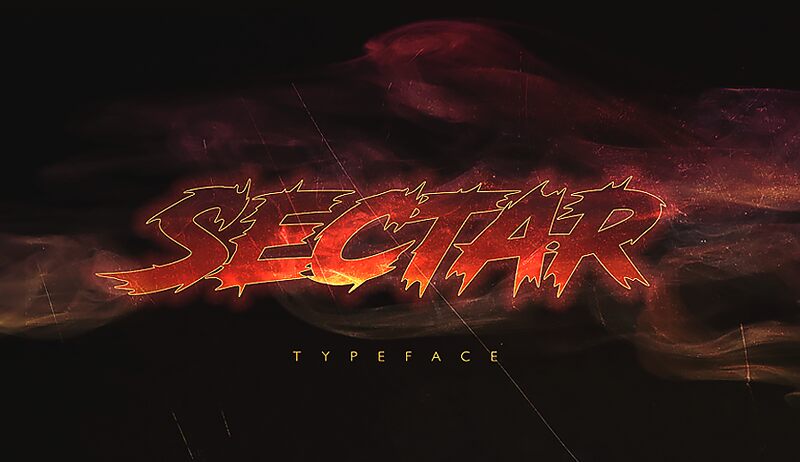
SectarSP-Back
Sectar SP Back font is designed by Youssef Habchi, a scary display typeface with an edgy and aggressive appearance. Bold and impactful, its letterforms have a modern structure with subtle imperfections giving the font charm, modernity, and much character. Letters are determined to stand out through their unusual flow and unfinished outlines.